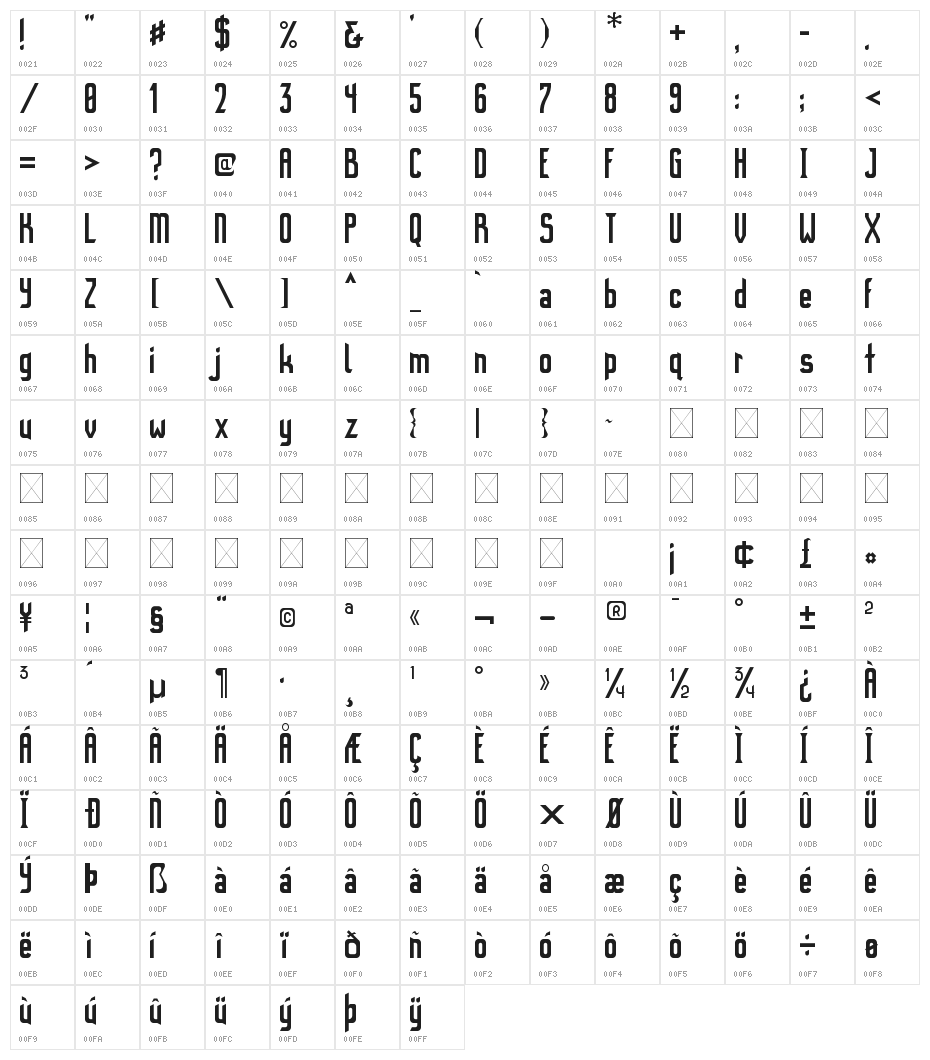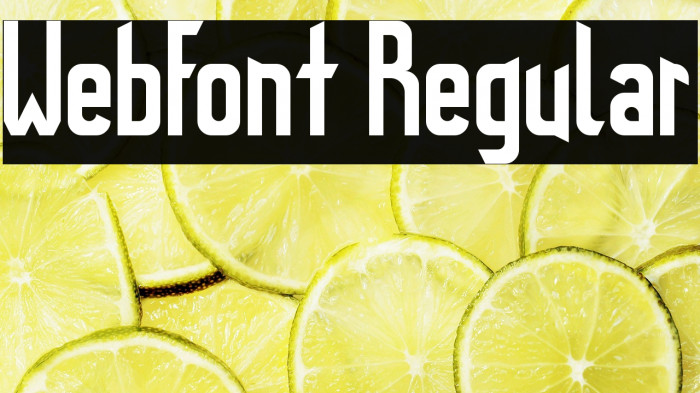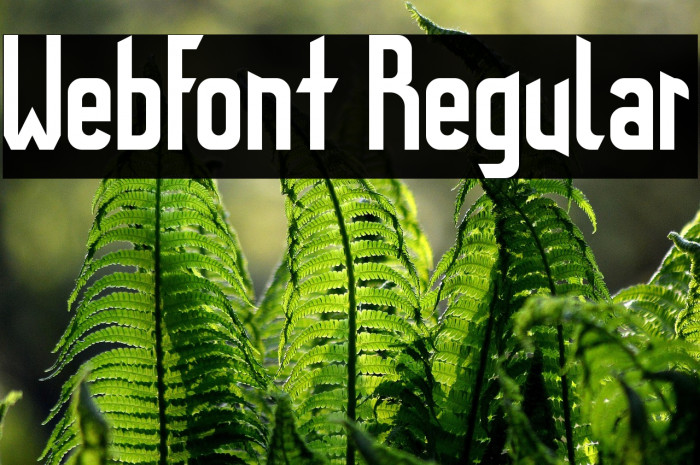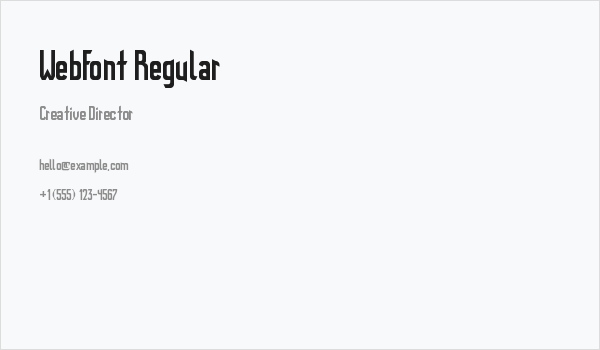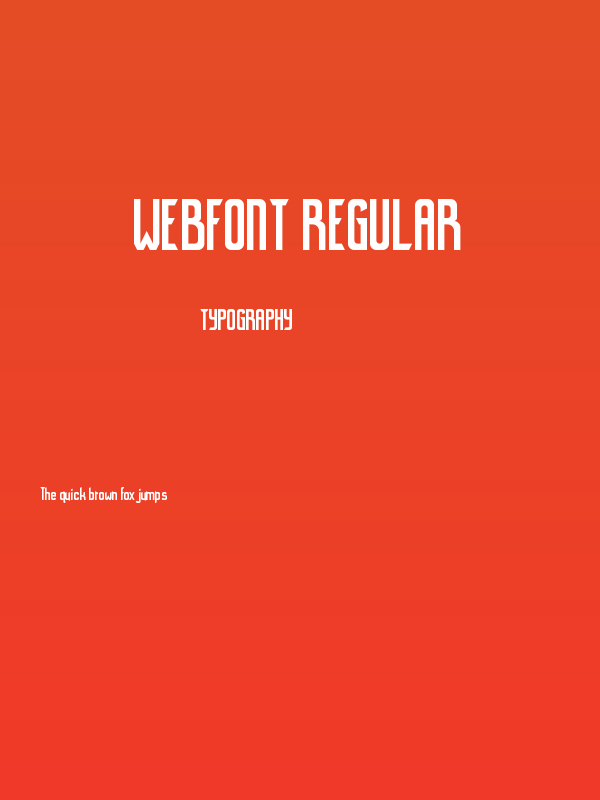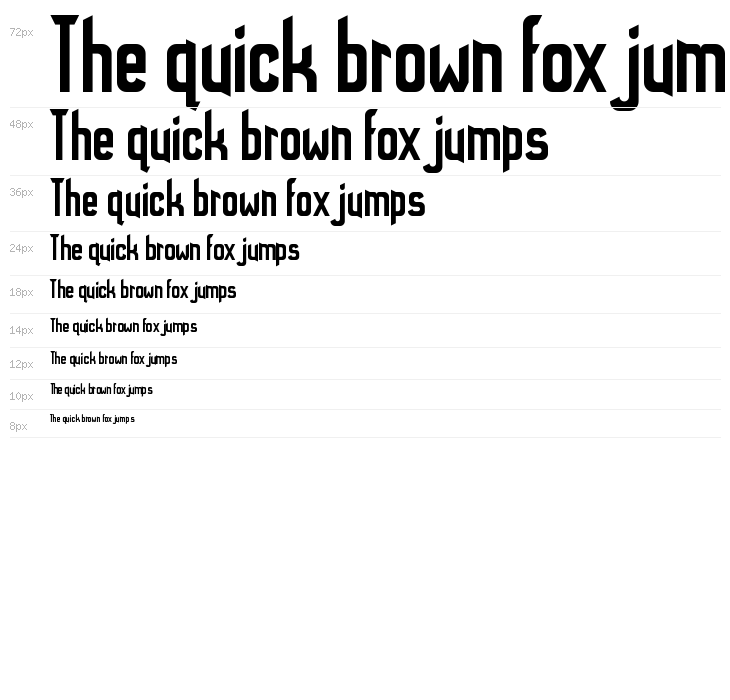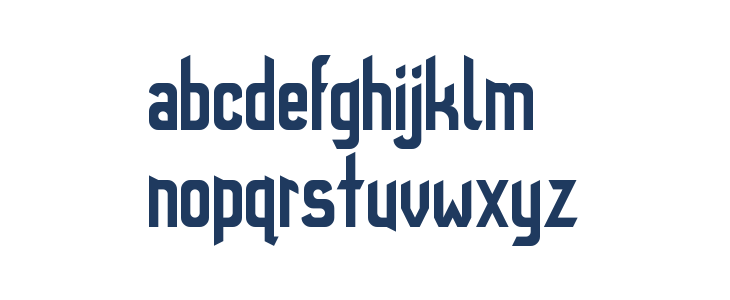
WebFont Regular Font
WebFont Regular Description
This font features a bold, geometric style with a modern and edgy appearance. The characters are tall and narrow, with sharp angles and a consistent stroke width that gives it a strong, impactful look. The uppercase letters are particularly striking, with a uniform height and a slightly condensed form. The lowercase letters maintain the same geometric style, offering a cohesive look across the typeface. The numerals are clear and distinct, matching the overall aesthetic of the font. Special characters are included, maintaining the same bold and angular design, making this font versatile for various uses.
| Proposed Projects | Ideal for branding, posters, headlines, and any project requiring a strong, modern typeface. |